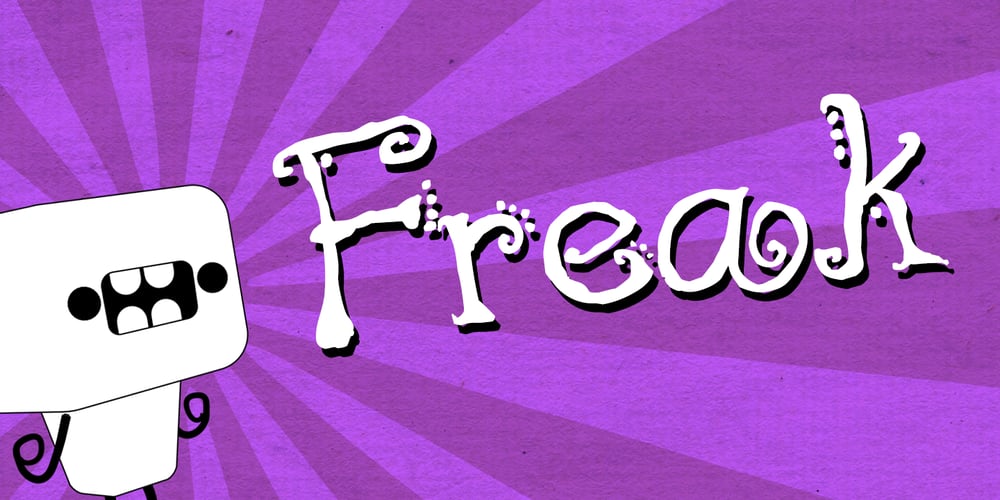
Freak Font Family was designed by Todd Dever and published by Cool Fonts. Freak contains 1 styles and family package options. This is a funky hand lettered font that just begs to be used for coffeehouse promo. It is best when used in sizes above 16 points and is even better when used for posters where it can be printed in giant sizes. It was hand drawn in Fractal Designs Painter with lots of little Doo-Dads.